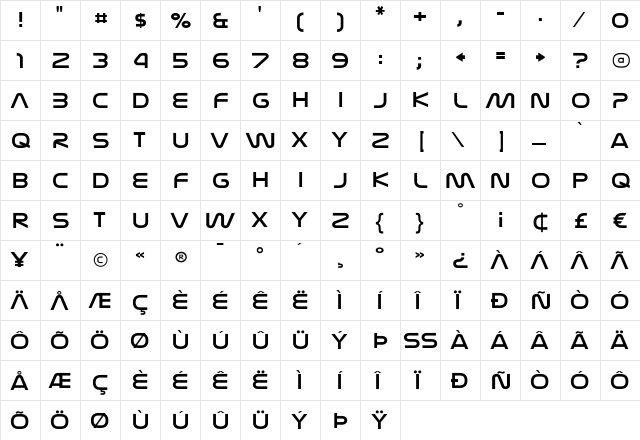
Nasalization Extended Regular
Design Context for Nasalization Extended Typeface
Nasalization Extended offers clean, dependable letterforms without strong stylistic allegiance, making it a practical choice for designers who need flexibility.